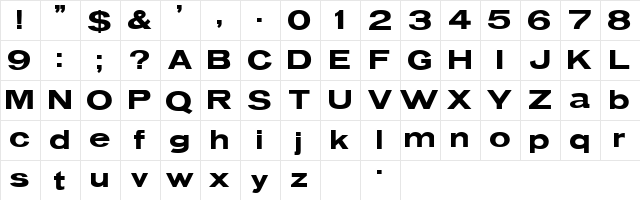
FlyTrap Extended
Design Context for FlyTrap Typeface
FlyTrap takes a measured approach to typography — its balanced proportions and neutral character make it a reliable workhorse for both digital and print work.